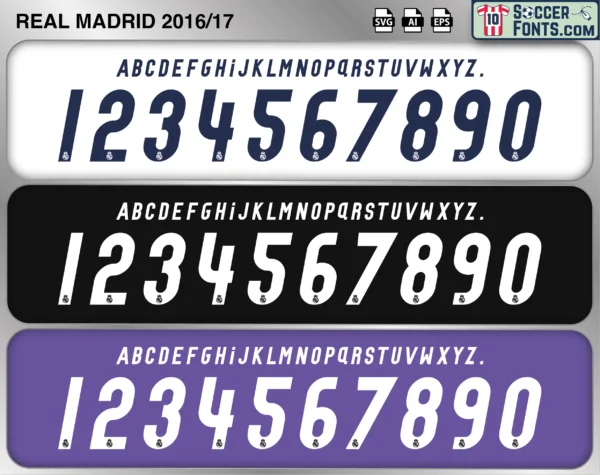
Real Madrid 2016-17 Font
The Real Madrid 2016-17 font is an editable soccer jersey lettering design in vector format inspired by the Real Madrid kit style used during the 2016-17 football season. This football font artwork is prepared for football shirt recreations, custom jersey projects, football kit mockups and sports graphic design workflows.
The Real Madrid 2016-17 font became associated with one of the club’s most historic achievements. By defeating Juventus in the UEFA Champions League Final in Cardiff, Real Madrid became the first team of the modern Champions League era to successfully defend the title. Cristiano Ronaldo delivered another outstanding European campaign, while Zidane established himself as one of football’s elite managers. Real Madrid shirts from this season remain exceptionally popular among football shirt collectors because of their connection with the famous league-and-European double and the beginning of an unprecedented run of Champions League dominance. The Real Madrid 2016-17 font reflects a period of sustained excellence, tactical maturity and football history, representing one of the strongest club teams ever assembled in the modern game.